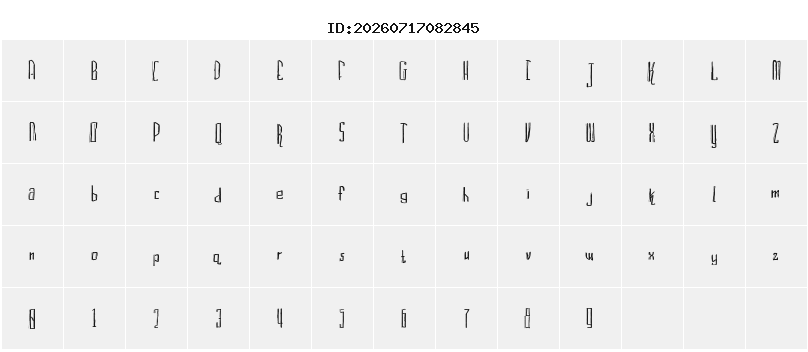
• Font Name: Brave Mountains
• Full Font Name: Brave Mountains
• Designer: Matthew Tyndall
• Manufacturer: Dismantle Destroy
About Brave Mountains.ttf
Brave Mountains.ttf is a modern, elegant sans-serif font designed for ultimate readability and visual harmony. Perfect for branding, headlines, web design, and print materials.